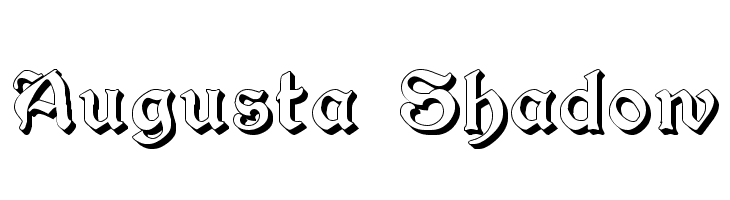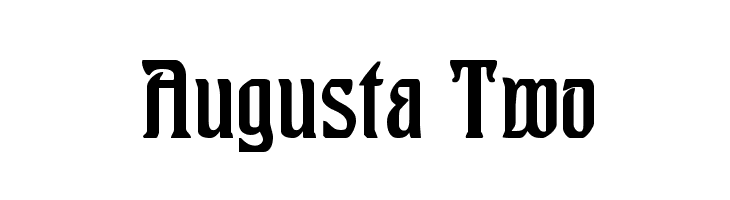
A bold, shadowed Blackletter-style font with intricate detailing.
A bold, blackletter-inspired font with sharp, angular lines and a medieval aesthetic.